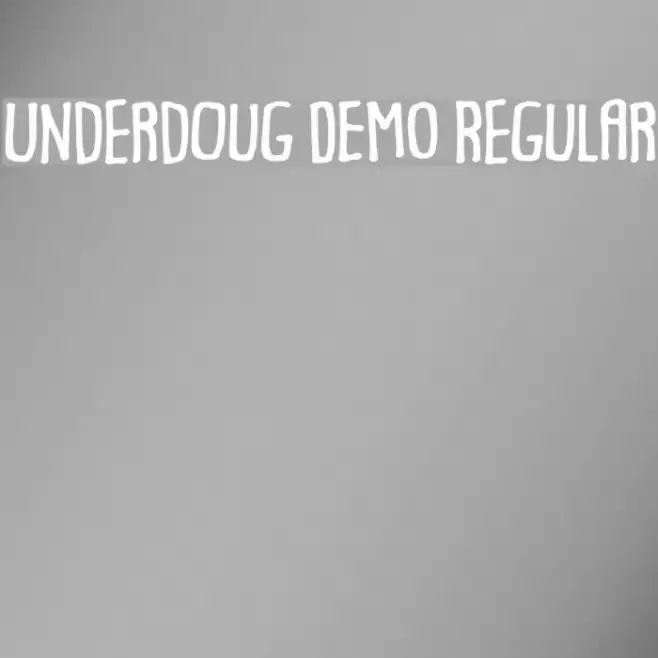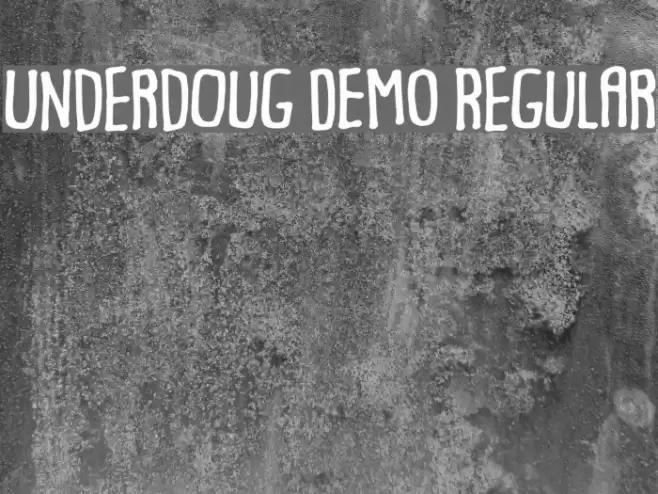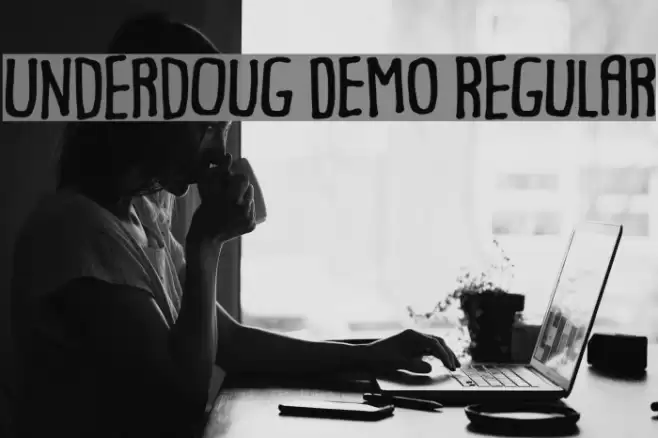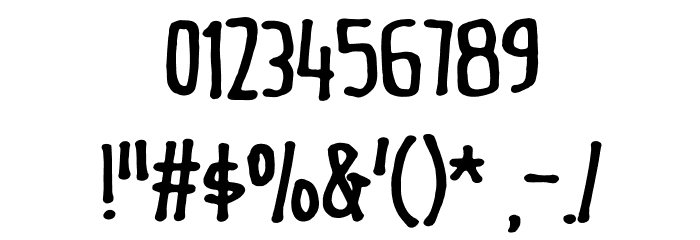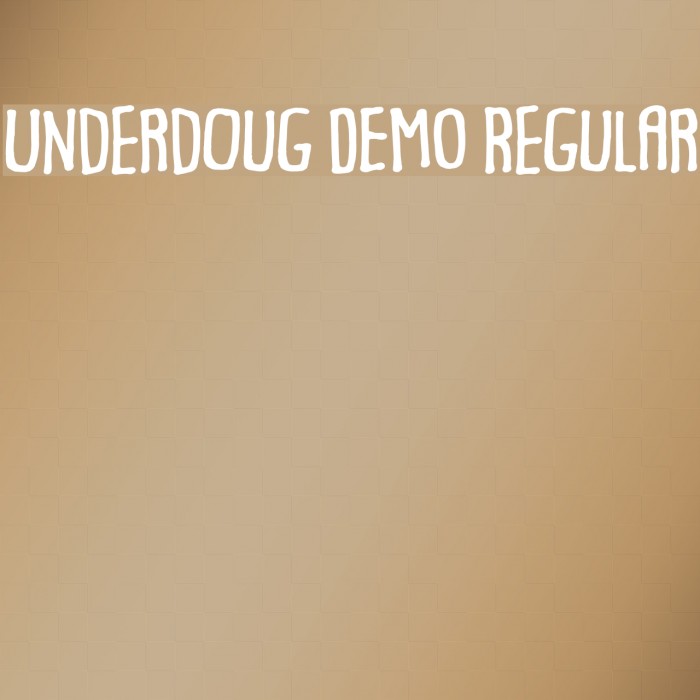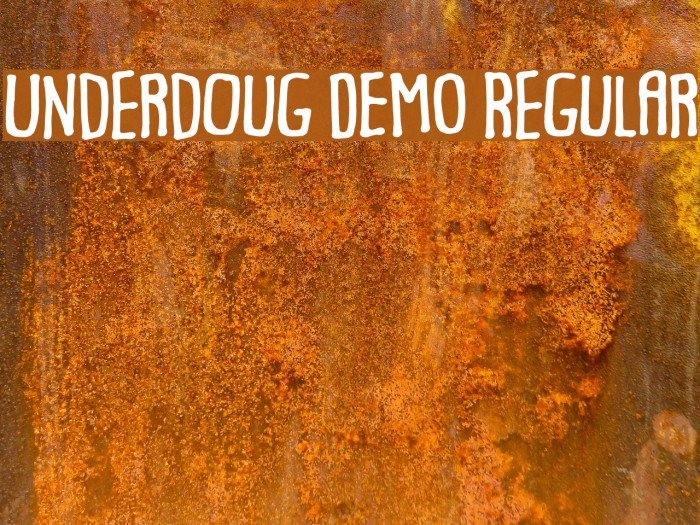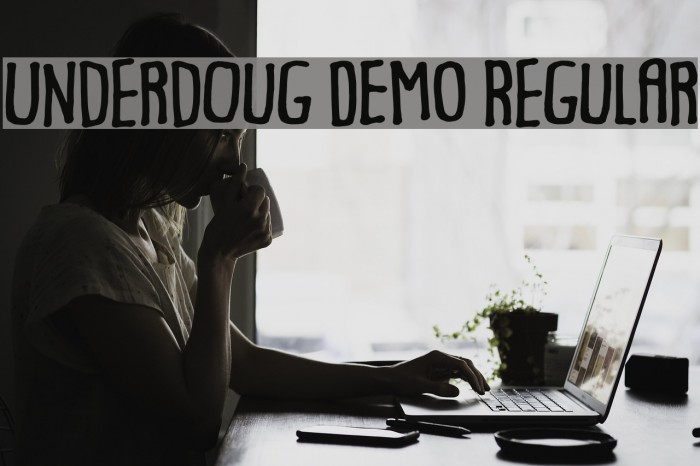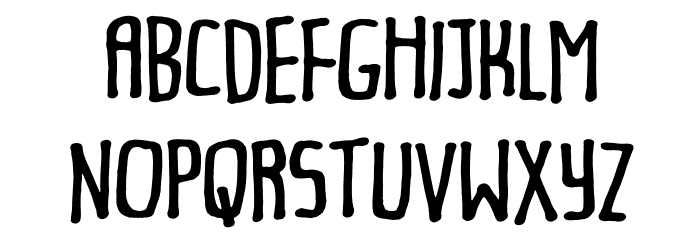
Underdoug DEMO Regular Font
Underdoug DEMO Regular Description
This font features a playful and informal style with a hand-drawn appearance. The characters are slightly irregular, giving it a whimsical and approachable feel. The strokes are consistent in weight, providing a uniform look across all letters and numbers. The uppercase and lowercase letters maintain a cohesive design, while the numerals and special characters complement the overall aesthetic. This font is ideal for projects that require a casual and friendly tone, such as children's books, posters, or creative branding.
A playful, hand-drawn font with a whimsical and informal style from Handwritten fonts.
- Proposed Projects: Children's books, posters, creative branding, casual invitations.